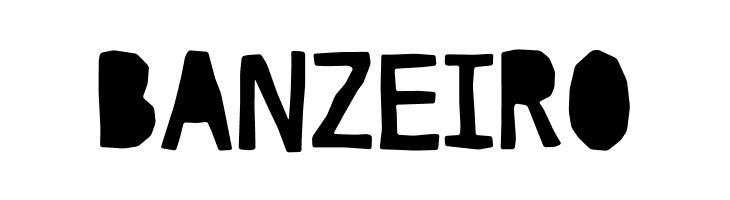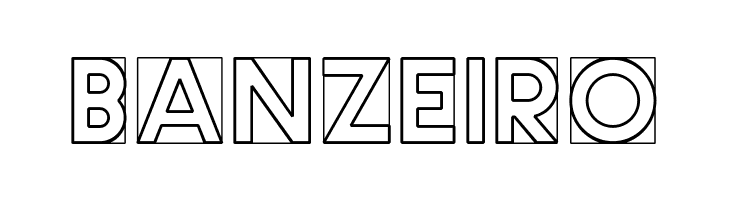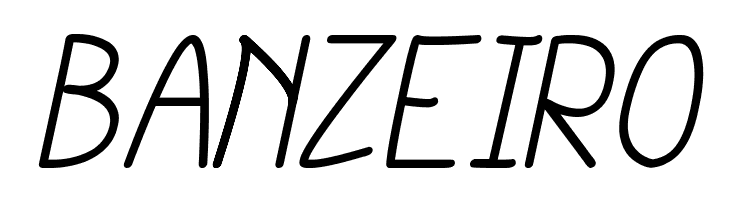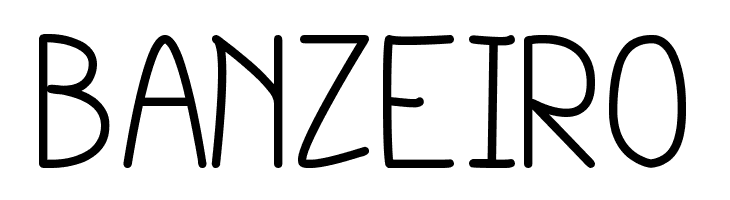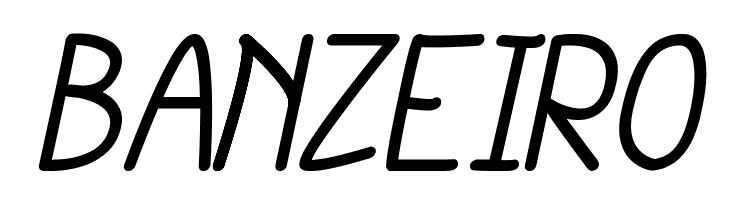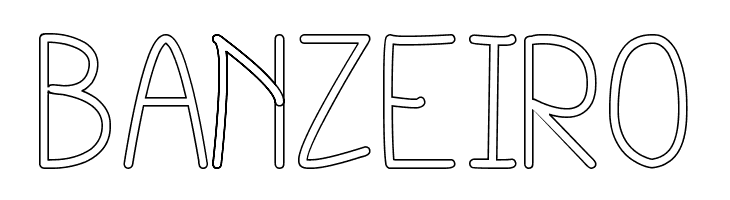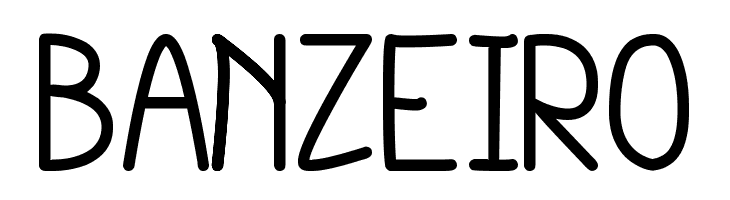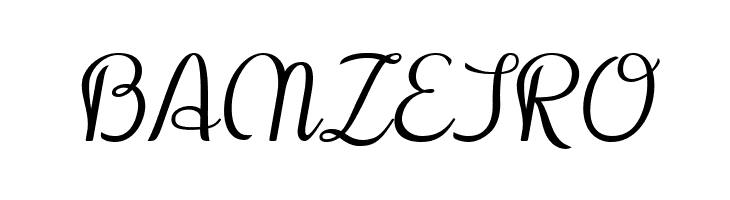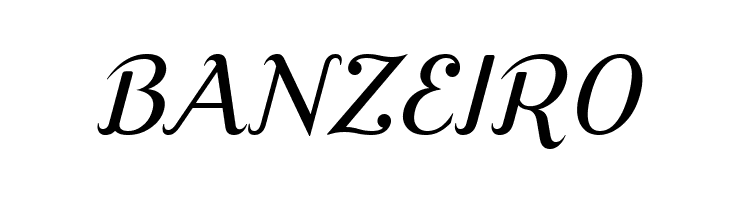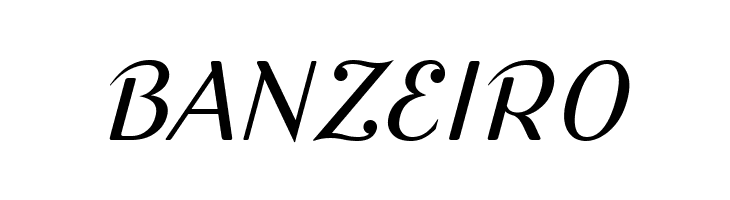
A bold, jagged font with a horror-themed, distressed appearance.
A bold, expressive script font with a brush-like texture and dynamic strokes.
A bold, expressive handwritten font with dynamic brush-like strokes.
A playful, handwritten font with a casual and friendly appearance.
A playful, hand-drawn font with rounded edges and a whimsical style.
A playful, bold, and italic handwritten font with rounded edges.
A playful, hollow, hand-drawn style font with rounded, outlined characters.
A playful, handwritten font with a slight slant and smooth curves.
An elaborate cursive font with intricate loops and decorative flourishes.
A bold, cursive-inspired sans-serif font with a dynamic and elegant style.
A cursive-inspired sans-serif font with elegant, slanted characters.
A bold cursive serif font combining elegance with readability.
A sophisticated cursive serif font with elegant, flowing characters.
A bold, expressive cursive font with fluid, dynamic strokes.
A cursive, handwritten-style font with elegant loops and swirls.
A bold, decorative font with contrasting strokes and playful curves.
A bold, interconnected script font with smooth, flowing lines and a modern twist.
A modern, geometric font with a futuristic and technical style.
A modern, thin, and elegant font with elongated, narrow characters.
Abstract, organic font with wavy lines and playful forms.
A modern, geometric font with clean lines and rounded edges.
A futuristic, geometric font with bold, rounded edges and a modern aesthetic.
A bold, rounded font with smooth curves and a modern, playful style.
A bold, futuristic font with rounded edges and a condensed, modern design.
A bold, rounded font with a futuristic and modern style.
A bold, high-contrast font with dramatic curves and artistic flourishes.
A modern, curvilinear font with smooth, flowing lines and elegant style.
A playful, curvy font with thin strokes and a whimsical style.
A bold, three-dimensional font with a playful, cushion-like texture and retro vibe.
A bold, geometric, and abstract font with a modernist aesthetic.
A bold, geometric font with a modern and abstract style.
A playful, cut-out style font with bold, irregular characters.
A playful, hand-cut style font with bold, irregular characters.
A bold, geometric font with a unique cut-out style, perfect for modern designs.